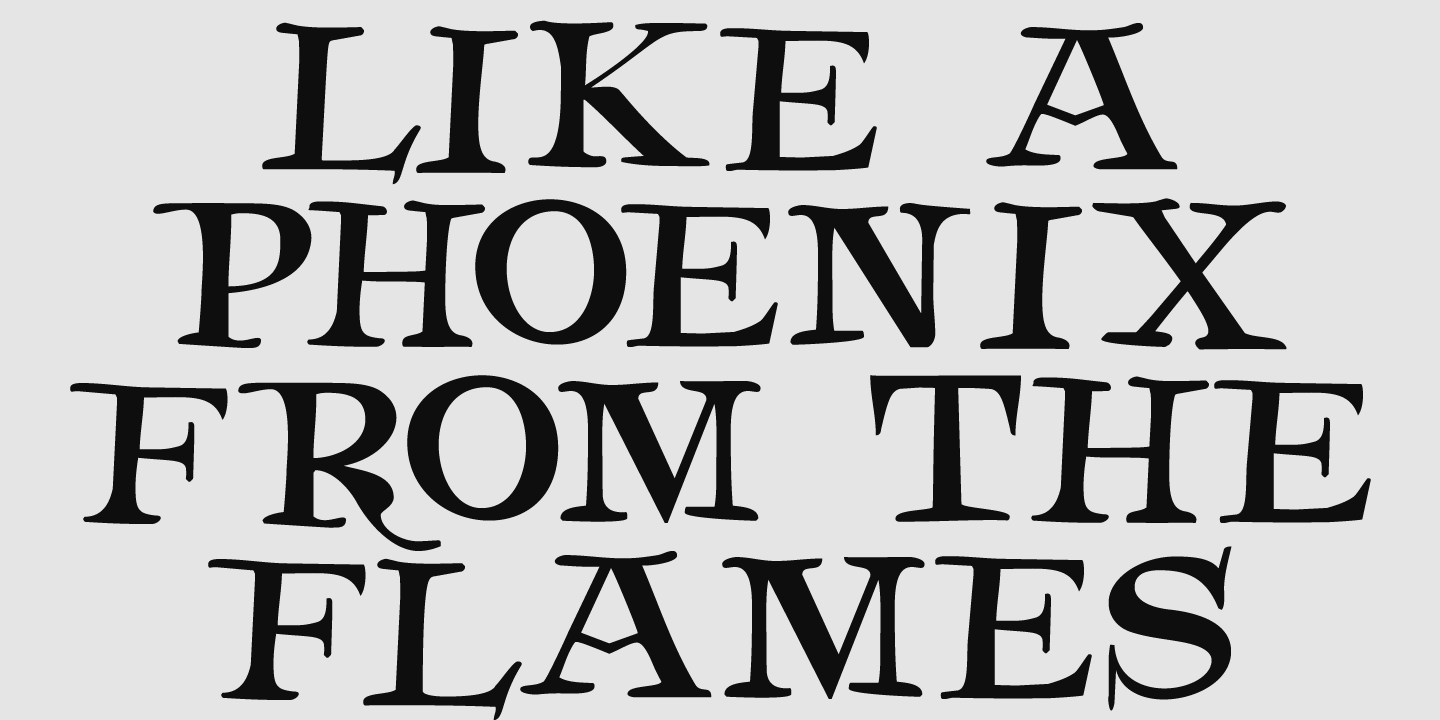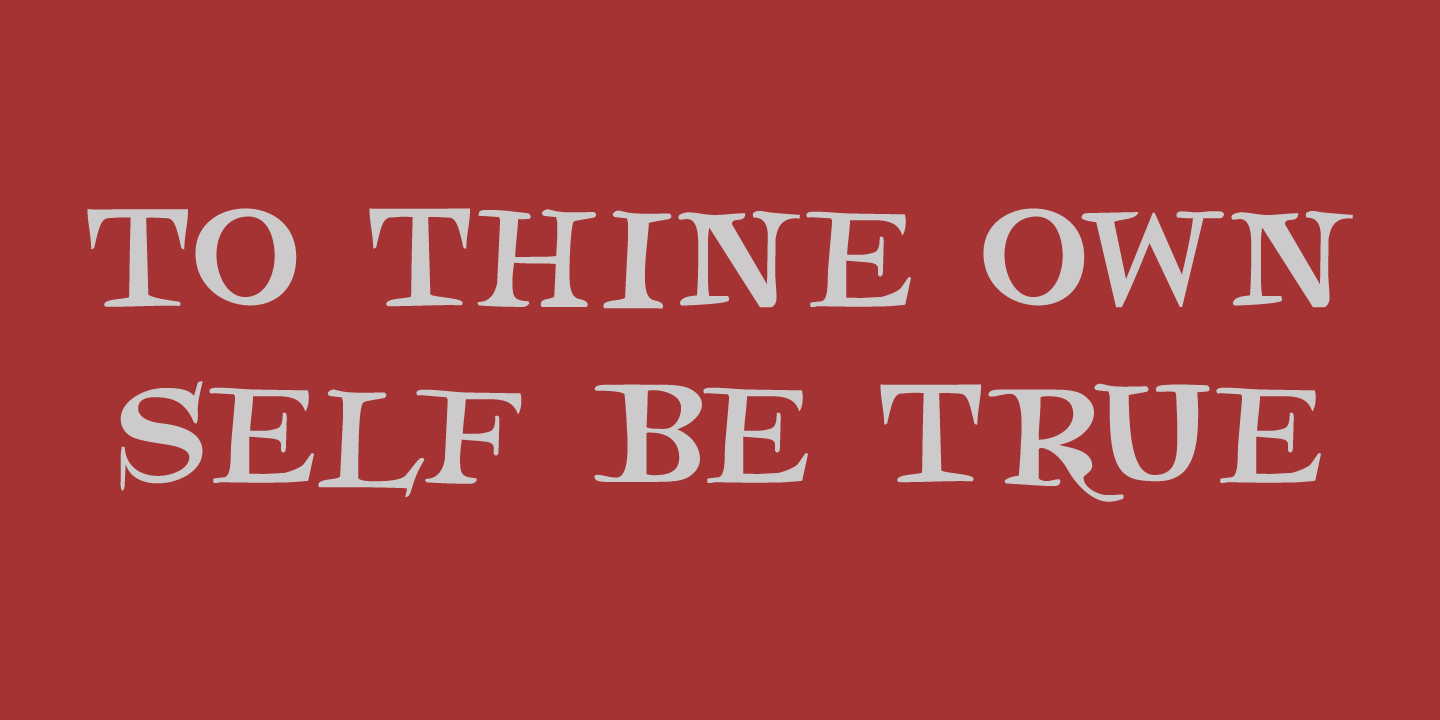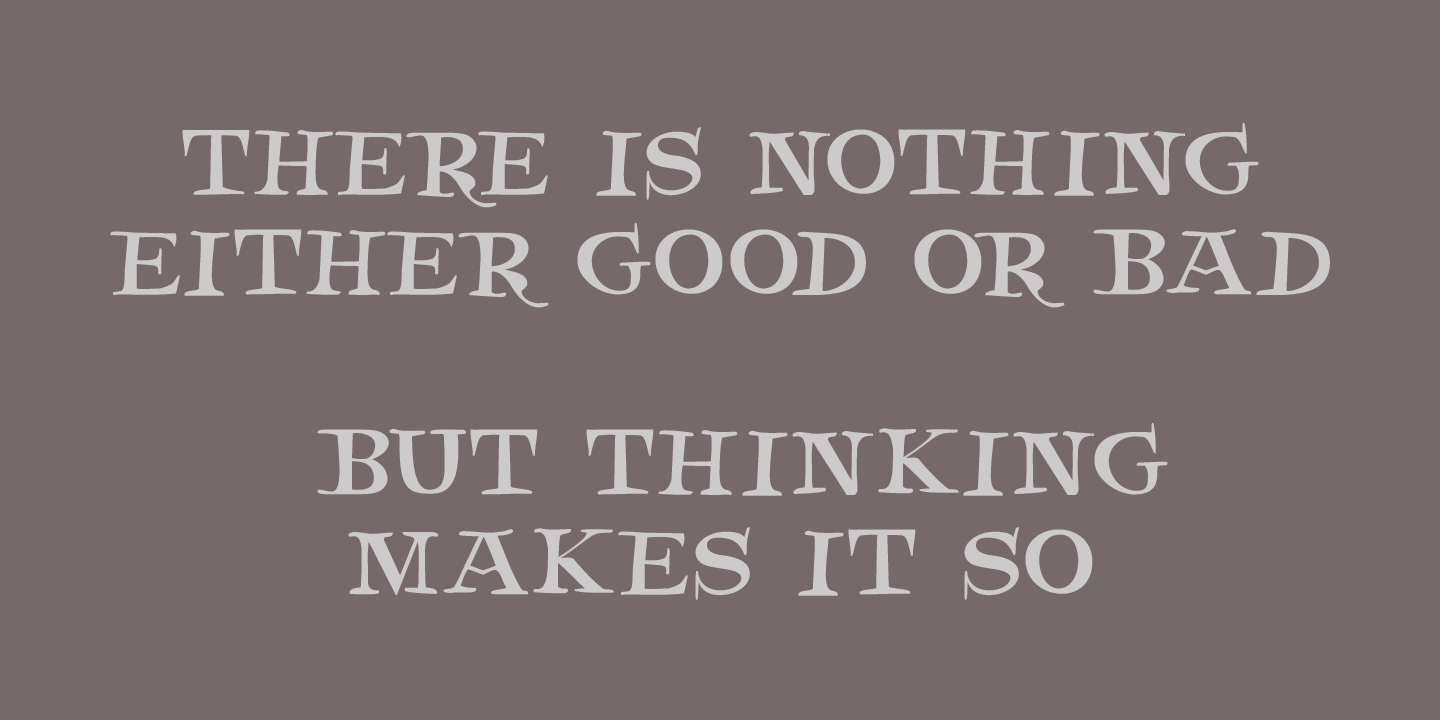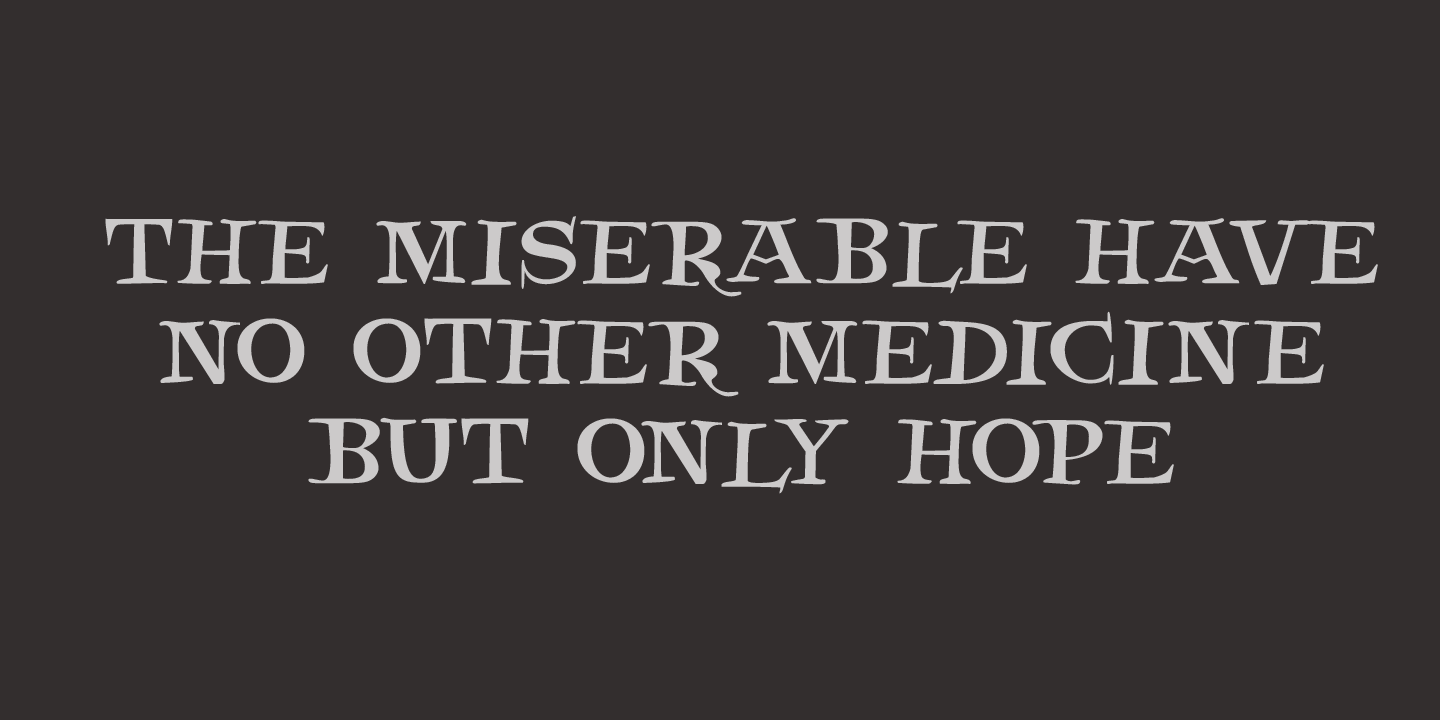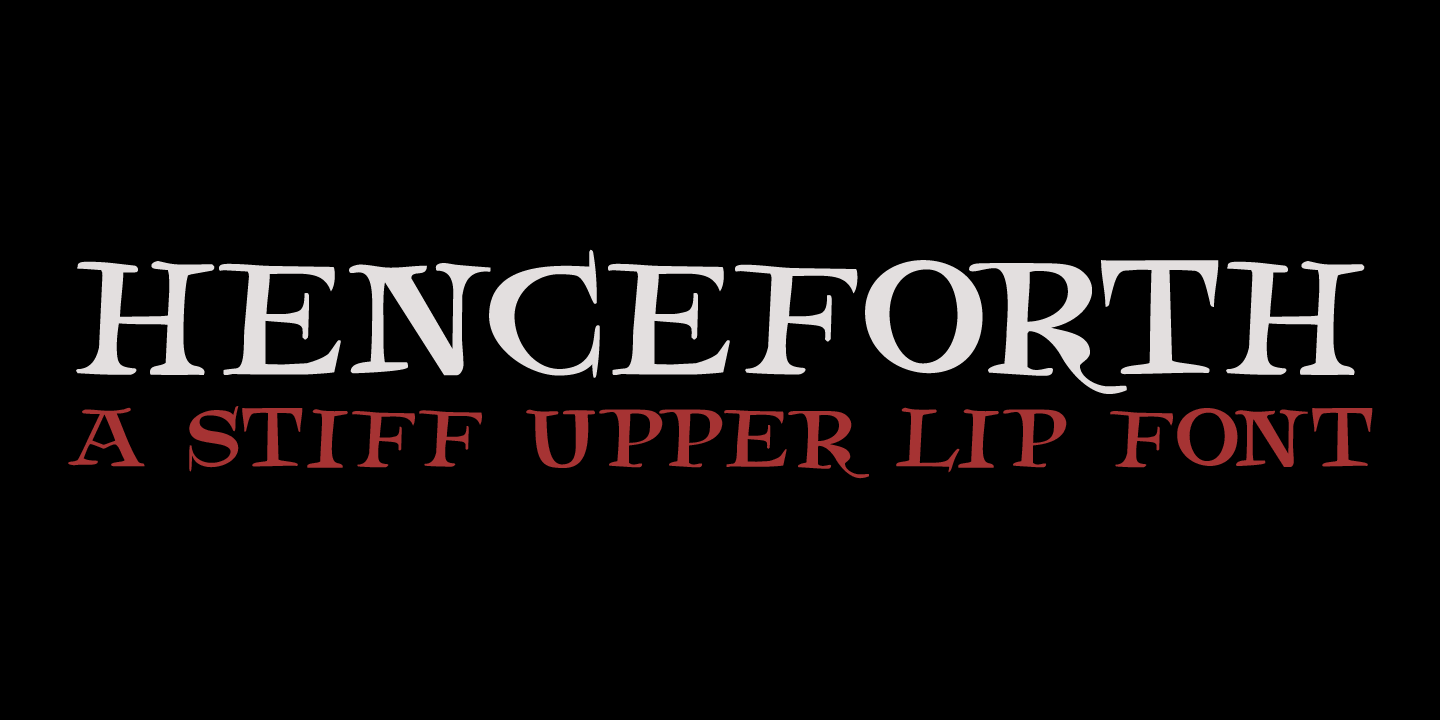
Henceforth
About Henceforth
Henceforth is a hand-drawn, all caps didone-style typeface. It is a little rough, a little uneven, but lively and elegant as well. Personally I think it has a certain poshness about it: I mean, it wouldn\’t look out of place in old Notary books, or old…